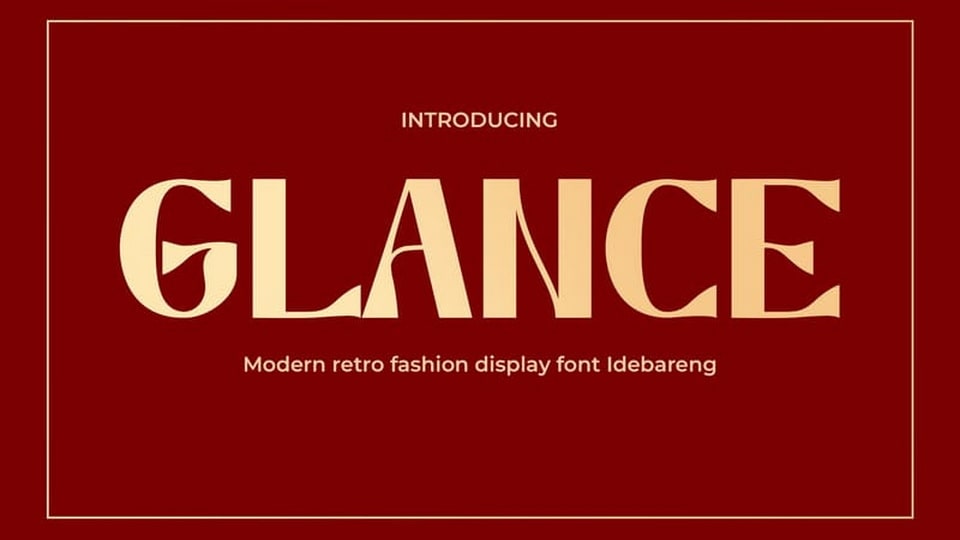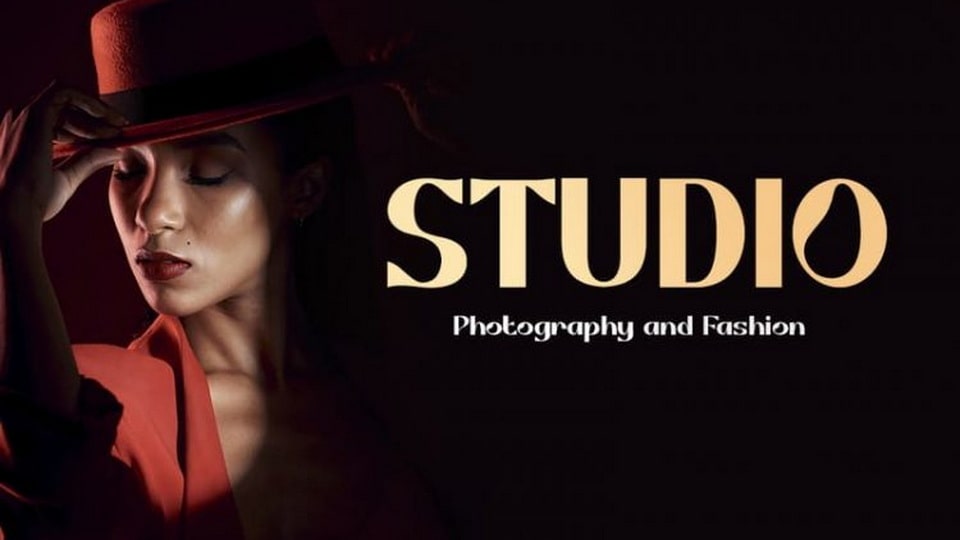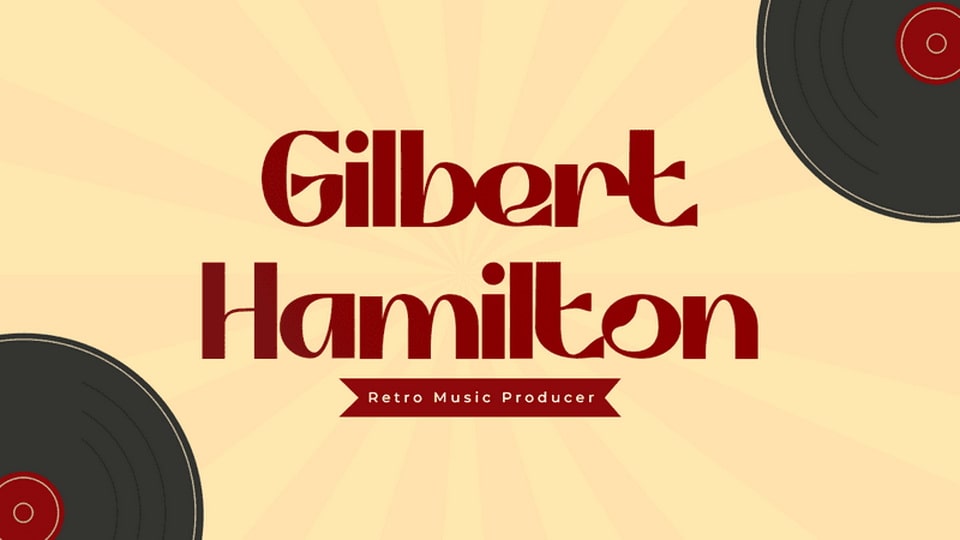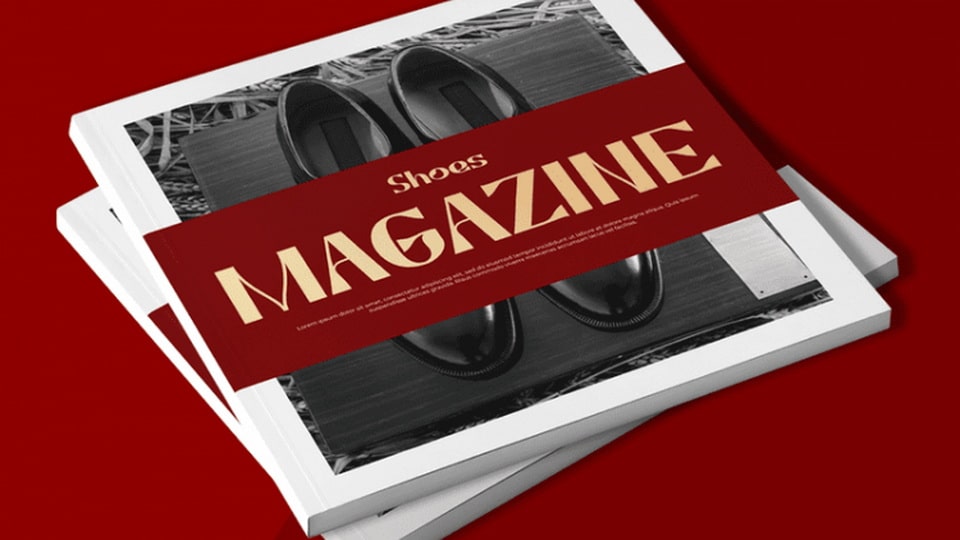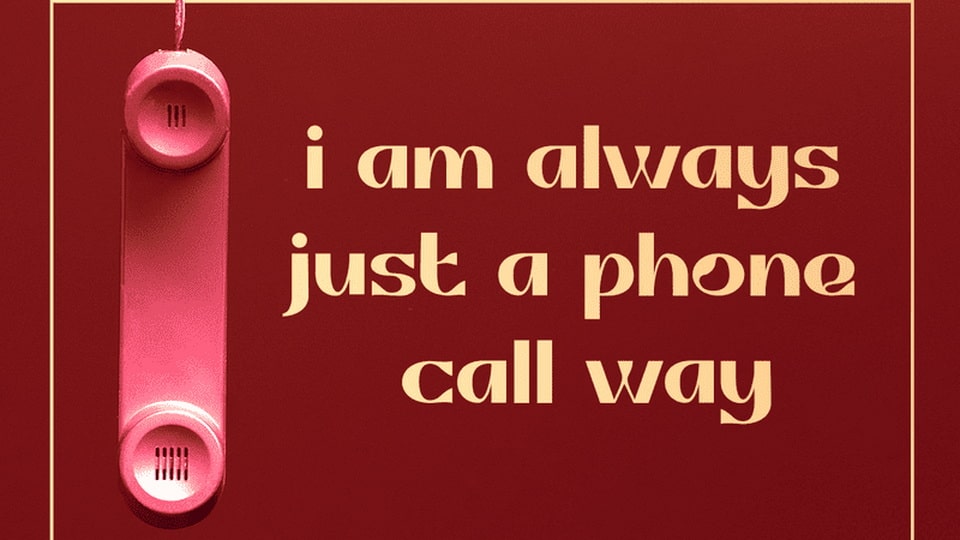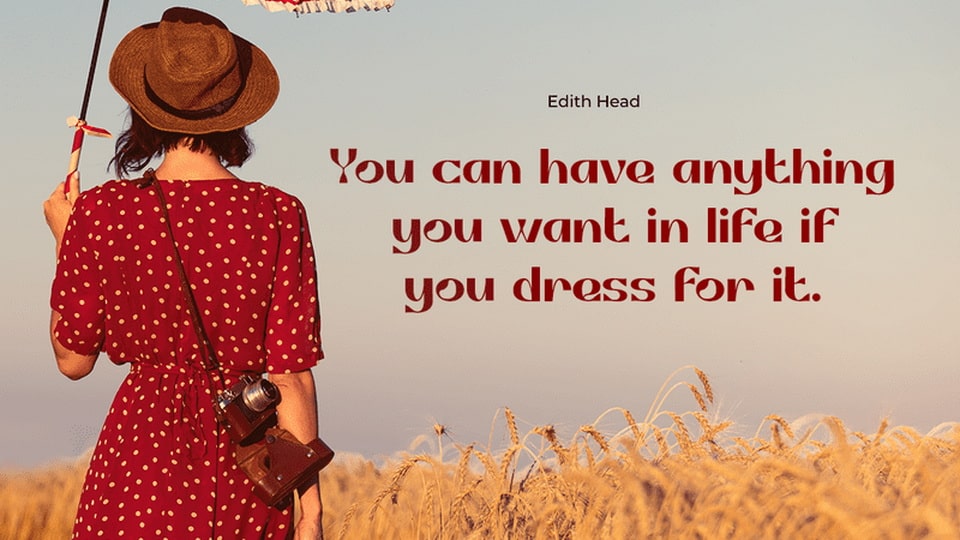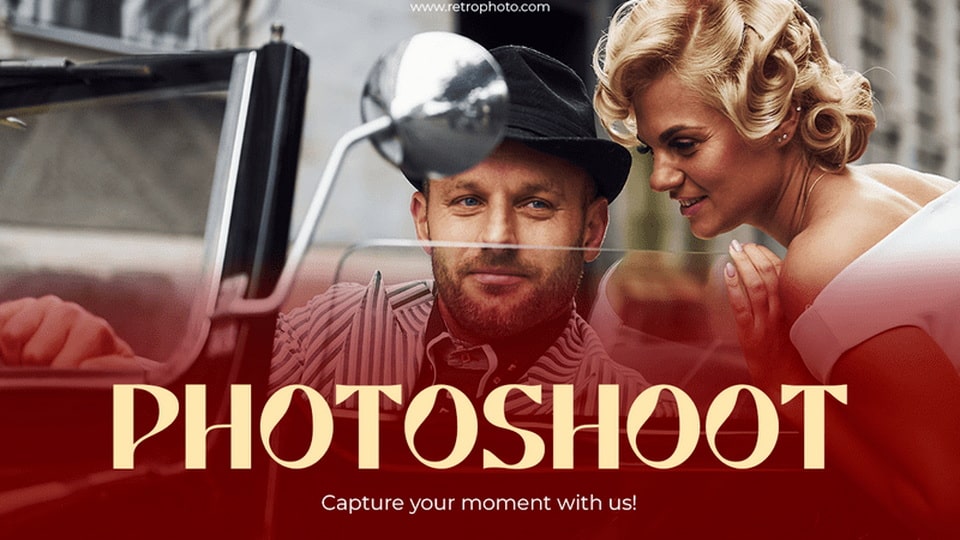
Introducing “Glance”, the modern retro fashion display font that is perfect for any business looking to make a bold statement with their brand. This font seamlessly combines classic and modern design elements, making it an ideal choice for companies in the fashion industry or any business looking to convey a sense of style and sophistication.
The sleek and stylish design of “Glance” makes it perfect for use in logos, promotional materials, and social media graphics. Its retro feel also lends itself well to vintage-inspired designs, making it an excellent choice for businesses looking to evoke a sense of nostalgia or pay homage to classic design elements.
Not only does “Glance” look great in print materials, but it also works exceptionally well in digital media such as YouTube thumbnails and movie titles. Its unique blend of classic and modern design elements makes it a versatile font that can be used in a wide variety of contexts.
Overall, “Glance” is a must-have font for any business looking to make a statement with their branding. Its classic yet modern design makes it perfect for the fashion industry or any business that wants to convey a sense of style and sophistication. So why wait? Add “Glance” to your font collection today and start making a statement with your branding!